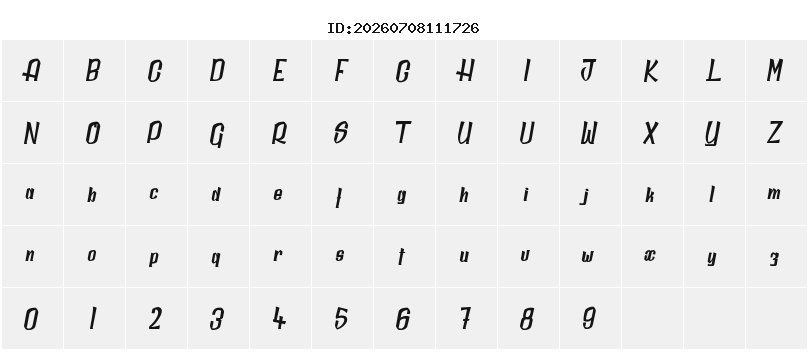
• Font Name: Daily Quantum
• Designer: dcoxy Medina Gregory
About Daily Quantum .ttf
Daily Quantum .ttf is a modern, elegant sans-serif font designed for ultimate readability and visual harmony. Perfect for branding, headlines, web design, and print materials.